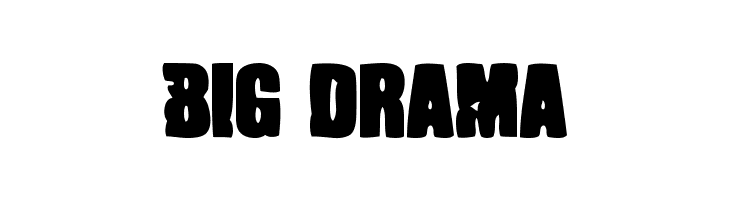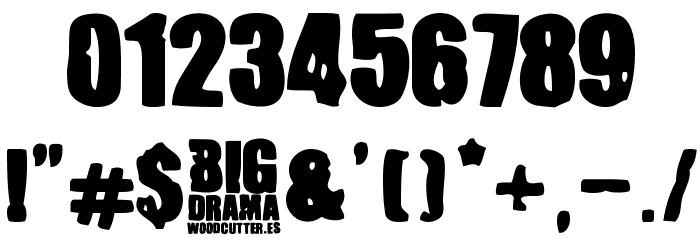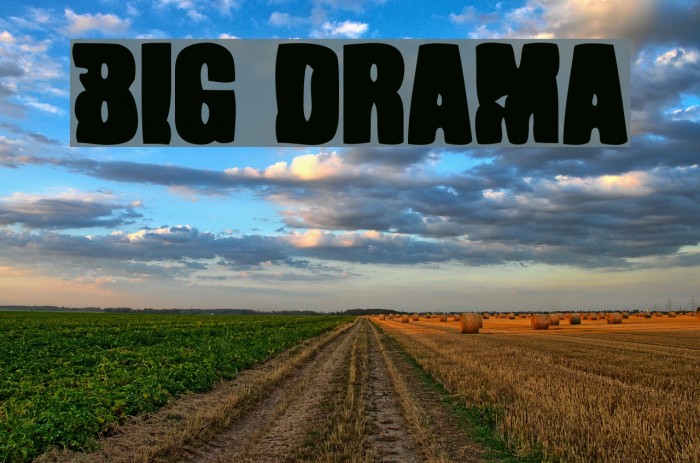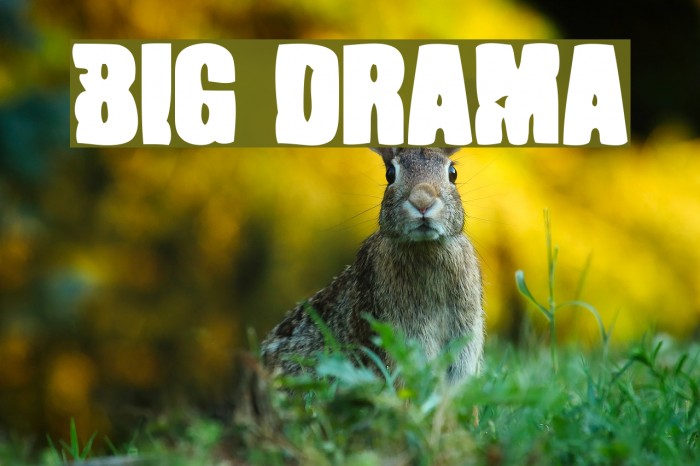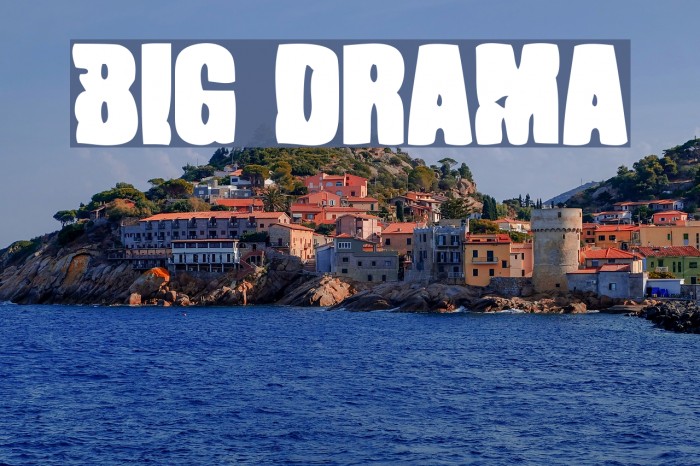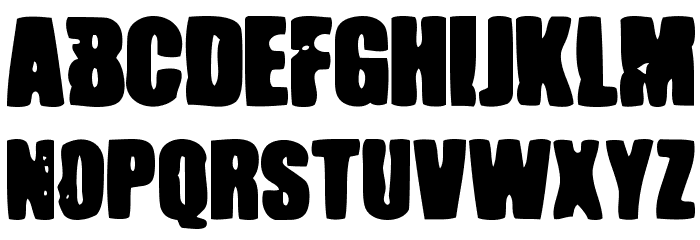
Big Drama Font
This font features bold, dramatic characters with a heavy weight and a strong presence. The letters are thick and blocky, with a slightly irregular shape that adds a playful, dynamic feel. The uppercase and lowercase letters maintain a consistent style, with rounded edges and a robust appearance. The numbers and special characters follow the same bold design, ensuring a cohesive look across all text. This font is ideal for making a statement, with its eye-catching and impactful design.
A bold, dramatic font with thick, blocky characters and a playful style.
• Proposed Projects: Ideal for posters, headlines, branding, and any project needing a strong visual impact.